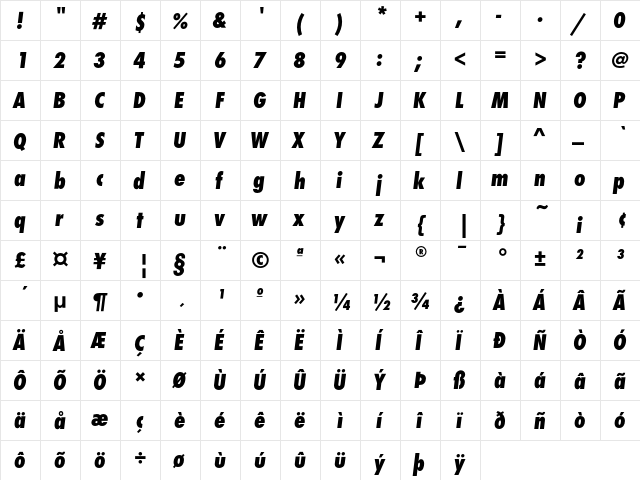
FuturaEF ExtraBoldCondObl Font Preview
| Style | ExtraBoldCondObl |
Design Context for FuturaEF Typeface
FuturaEF has a distinctly futuristic character, with geometric precision and clean angles that feel at home in technology, gaming, and sci-fi contexts. The heavy weight commands attention and anchors typographic hierarchies. The condensed width makes it efficient for tight spaces without sacrificing legibility.
Pro Tip: Use FuturaEF in combination with a neutral sans for body text. Let it define the brand voice in headlines while keeping reading comfortable elsewhere.